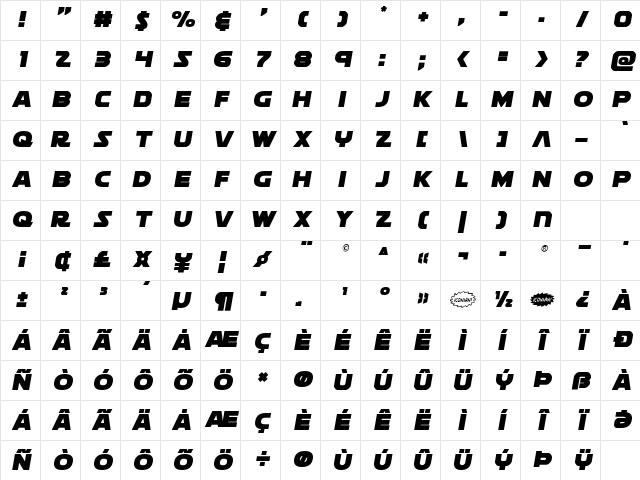
Soloist Title Regular
Design Context for Soloist Title
Soloist Title is a composed and adaptable typeface that performs quietly and consistently across a wide range of design contexts.